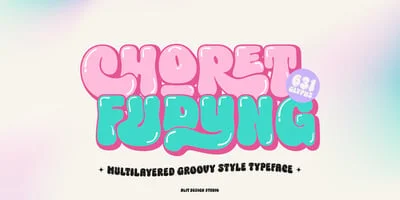
Choret Fudyng Font
Choret Fudyng Font is perfect for experimental art projects, avant-garde design studios, creative expression campaigns, artistic typography installations, innovative branding solutions, unconventional advertising materials, abstract design portfolios, contemporary art exhibitions, progressive cultural institutions, and boundary-pushing creative communications.
What makes Choret Fudyng Font exciting is its artistic uniqueness that perfectly captures the experimental spirit and creative innovation found in contemporary typography and avant-garde design movements. This typeface features distinctive letterforms with unconventional proportions and artistic details that challenge traditional design boundaries while maintaining functional readability. The font's experimental personality and artistic authenticity make it ideal for creative brands seeking to convey innovation, originality, and the artistic courage that comes from pushing creative boundaries and exploring new typographic territories.
Choret Fudyng Font family includes experimental weight variations and artistic alternatives that enhance its creative appeal while providing design flexibility for avant-garde and artistic applications. The font features innovative ligatures, artistic ornaments, and experimental character variations that create authentic contemporary atmosphere for creative and artistic branding.
Creative agencies and artistic institutions consistently choose Choret Fudyng Font for projects requiring authentic experimental appeal and artistic credibility. The font's innovative character excels in applications targeting artists, designers, and creative professionals who appreciate genuine artistic expression and experimental design thinking. Whether you're designing for art galleries, creative studios, or experimental projects, this distinctive typeface delivers the artistic authenticity and creative innovation that resonates with audiences seeking genuine creative expression and the artistic courage that defines contemporary experimental design and typographic innovation.